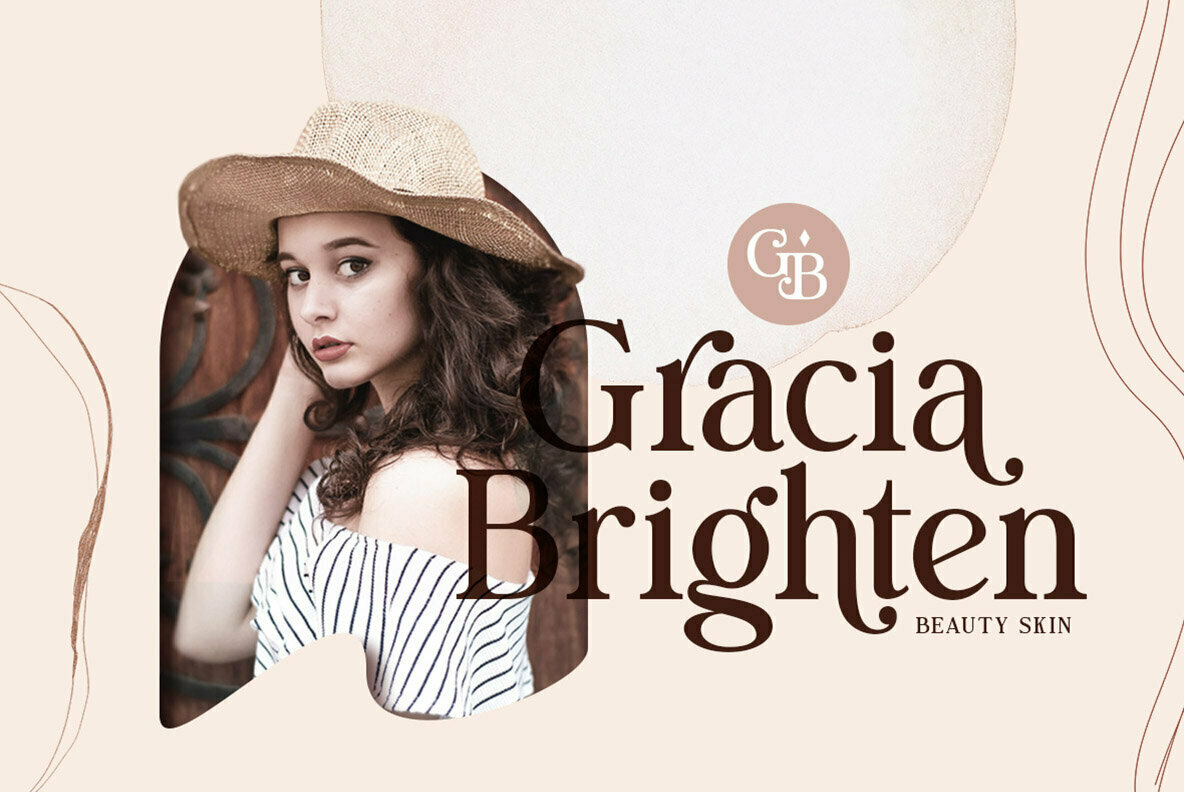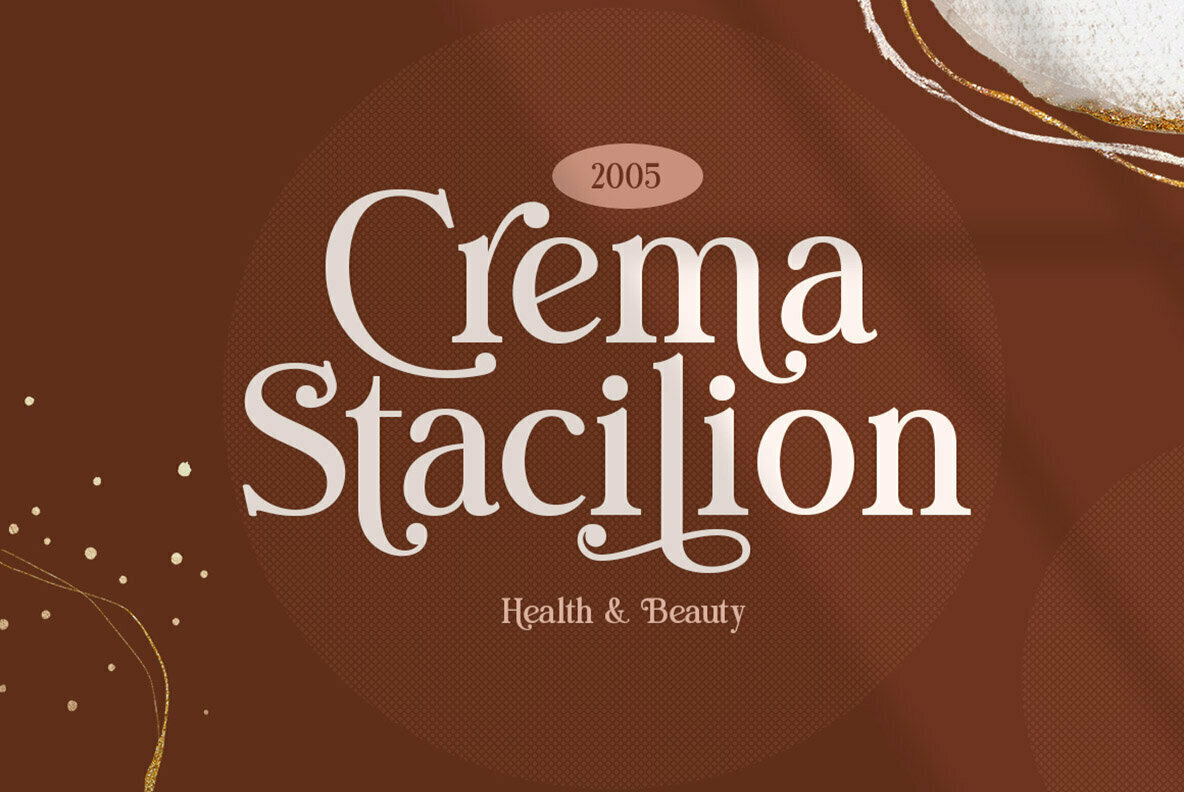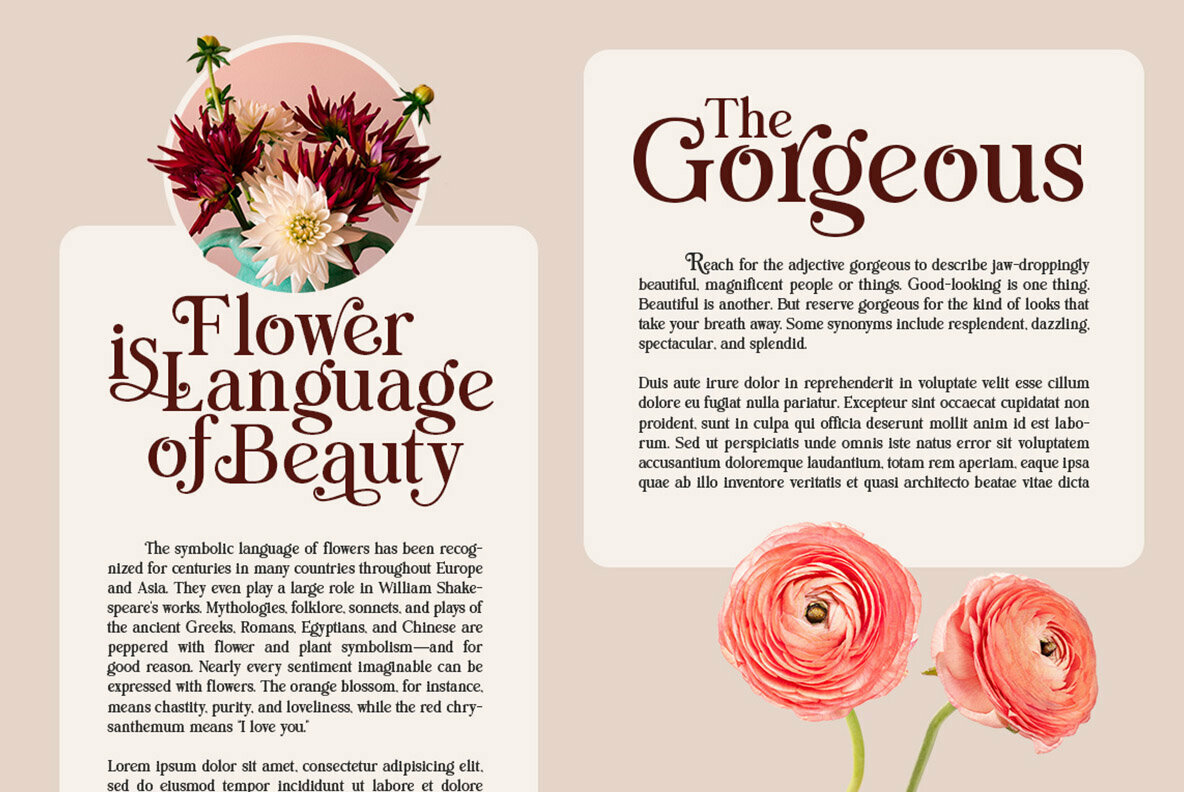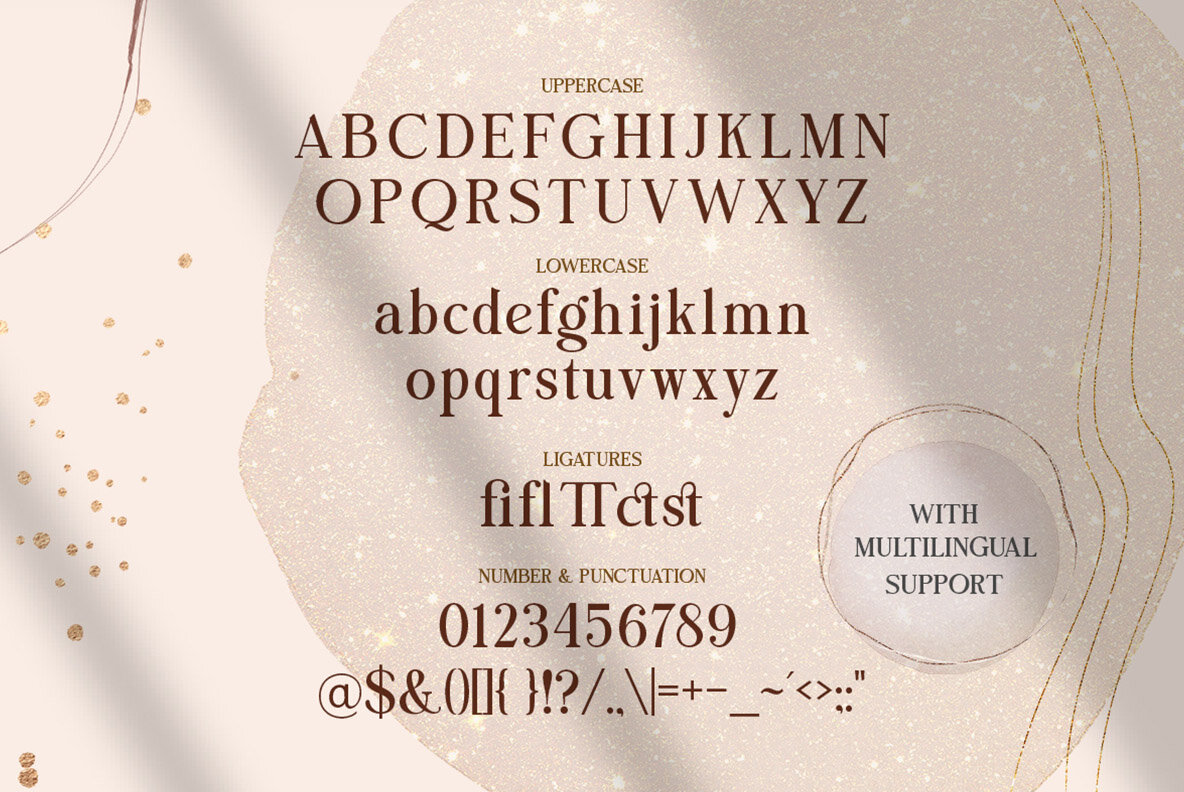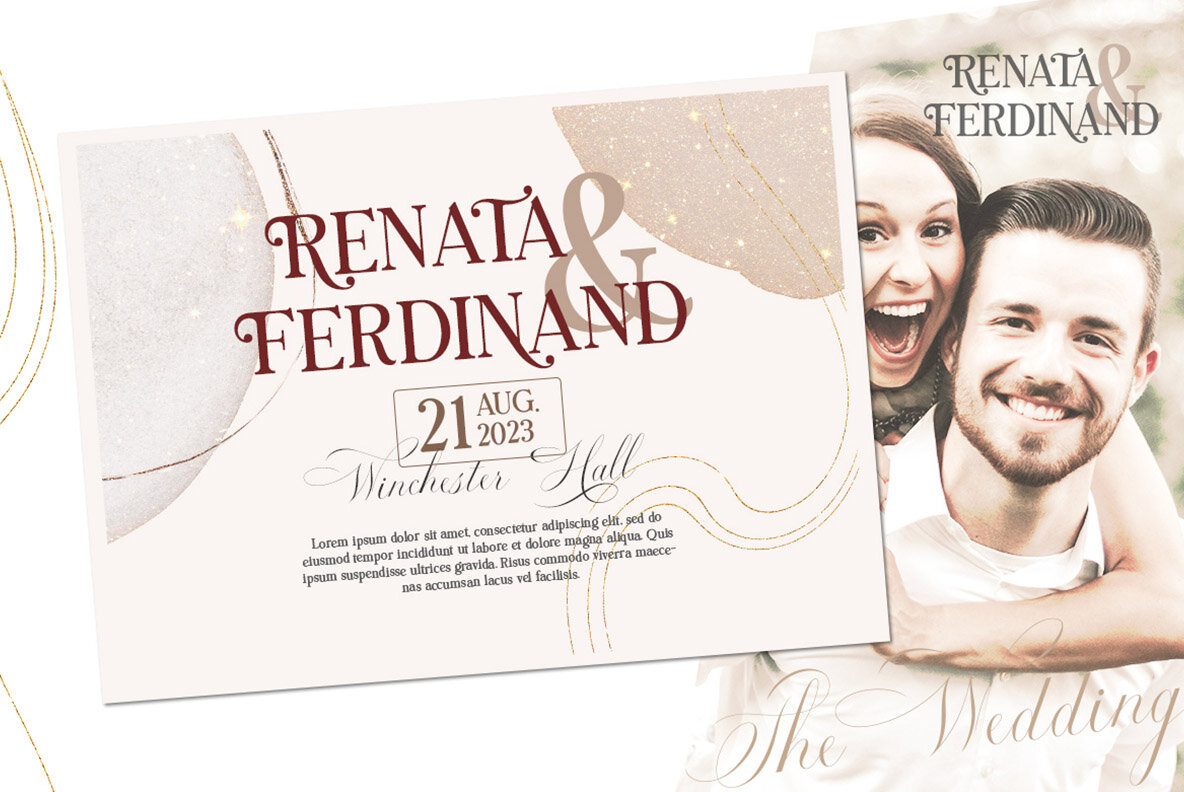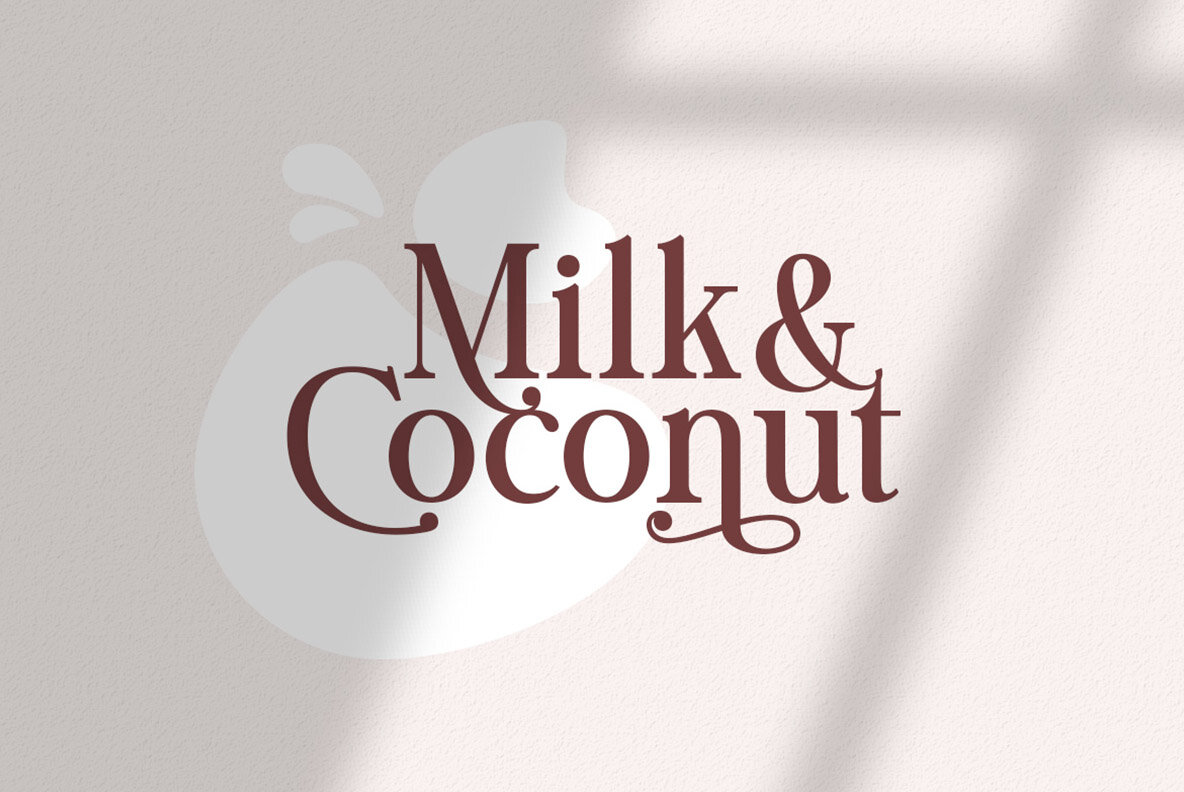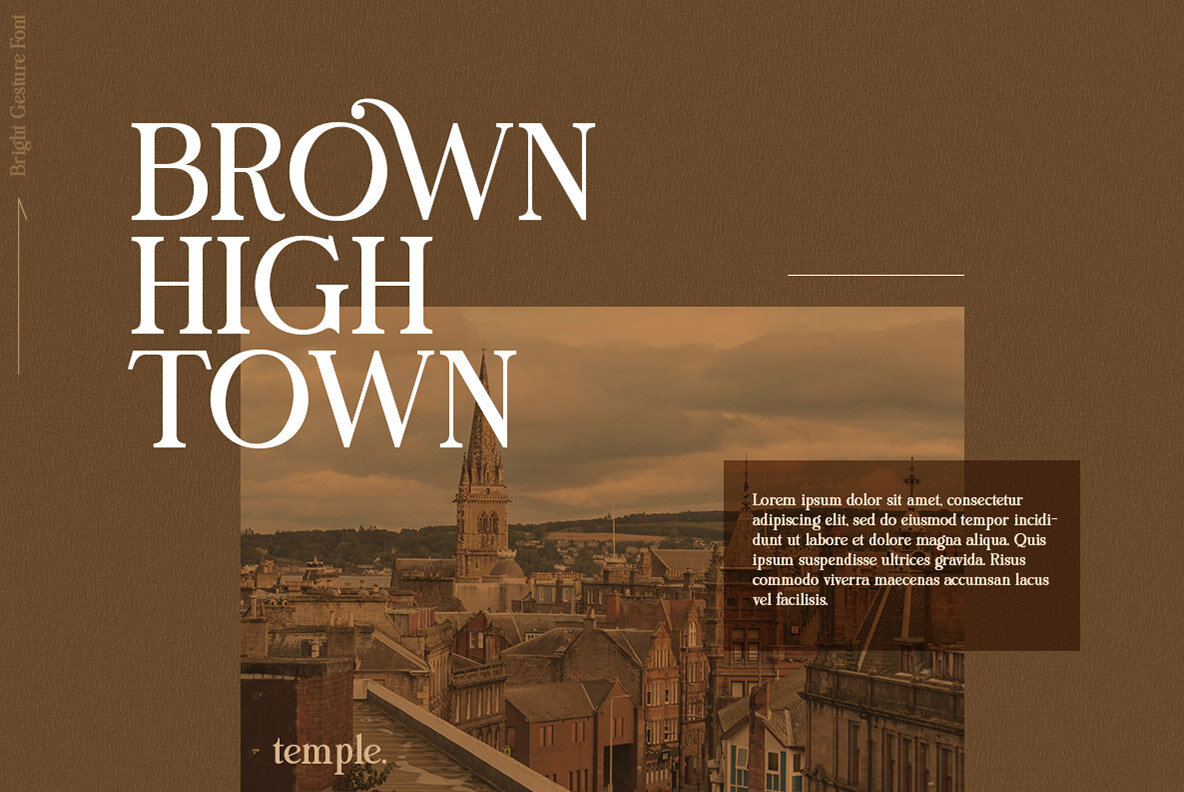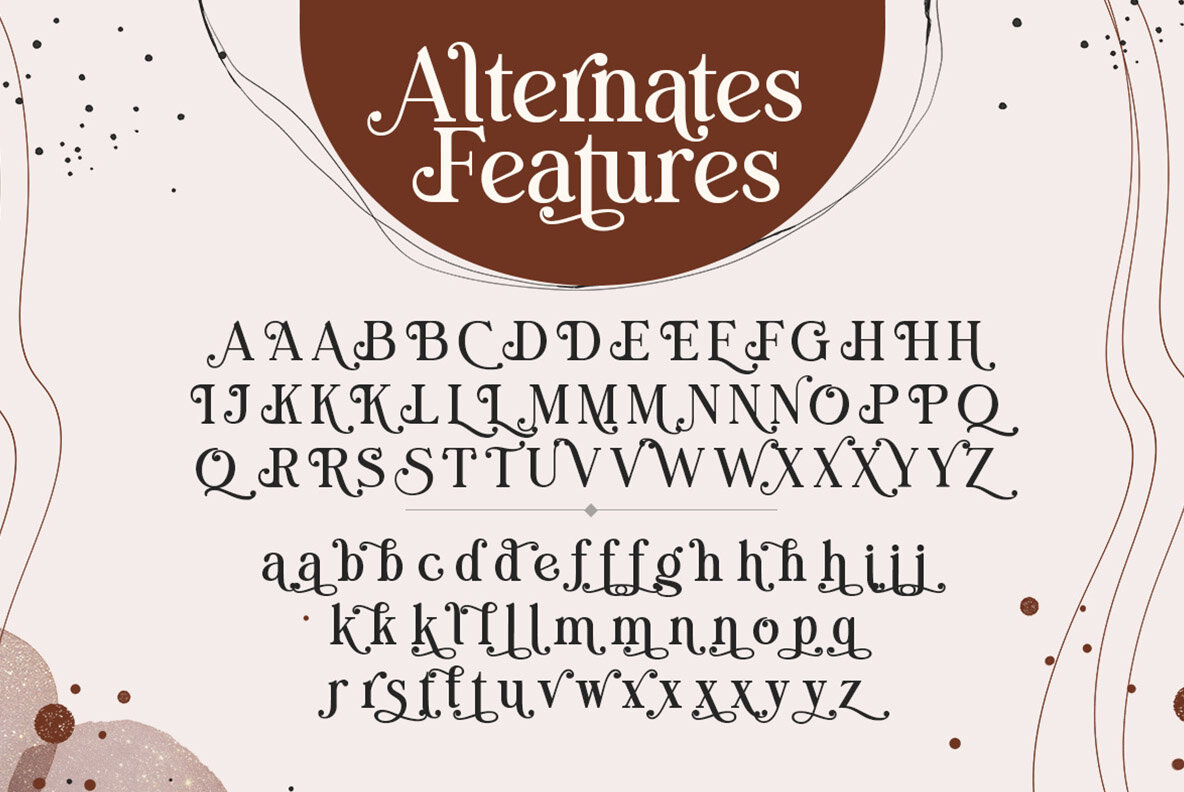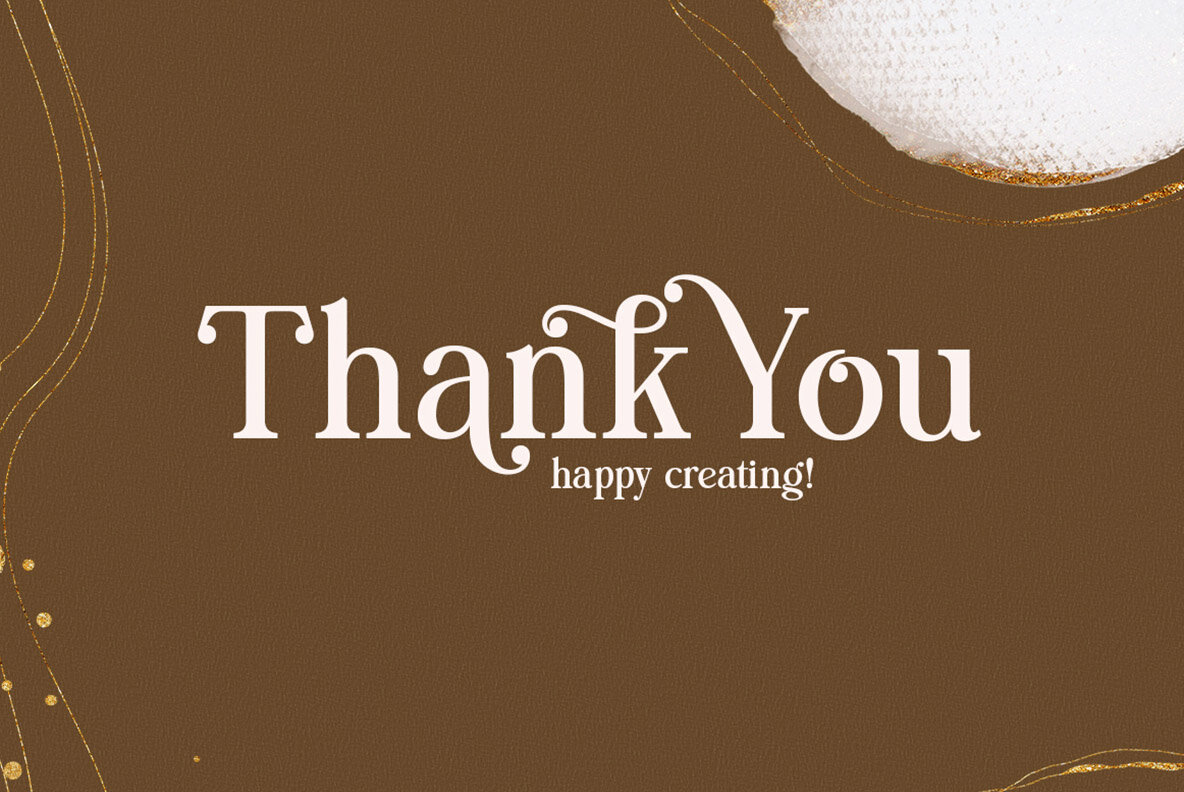
Bright Gesture Font
Bright Gesture Regular
Dive into the elegance of Bright Gesture, a serif font designed for modern needs. Its stylistic alternates and ligatures create a distinctive appearance, ensuring it stands out in any design setting. Ideal for professional branding, Bright Gesture excels in applications like logos, formal documents, and various print mediums. For those looking to explore its full potential, we suggest using software that supports OpenType features such as Adobe applications and Corel Draw, providing complete access to its diverse glyph variations.Bright Gesture: Modern Serif Font with Swashes